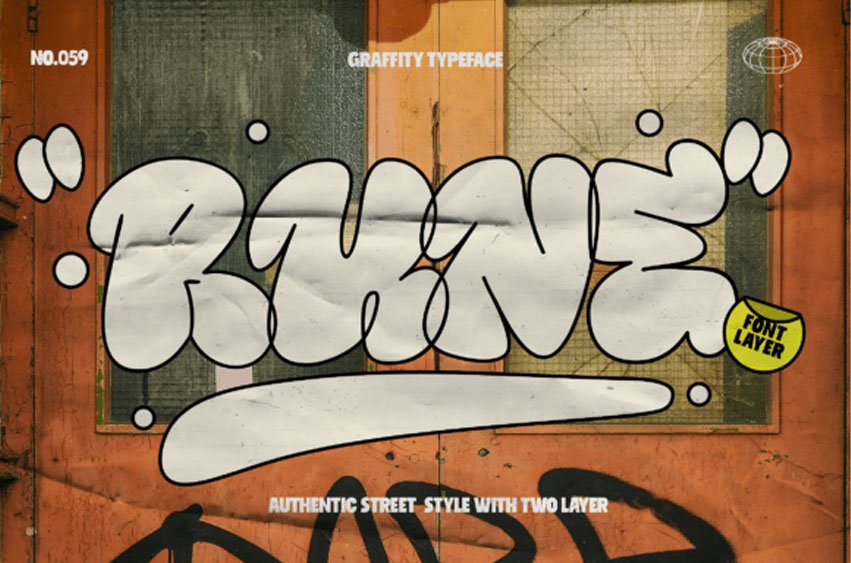
Rune Font is a unique graffiti-style font that embodies the boldness, rebellion, and creativity of street art culture.
Designed with layered flexibility (base and outline), Rune gives your artwork depth and versatility. Whether you’re crafting edgy visuals for any designs, Rume delivers a raw, street-smart aesthetic that can’t be ignored.